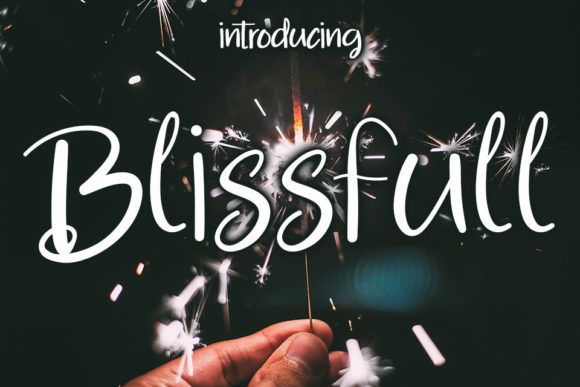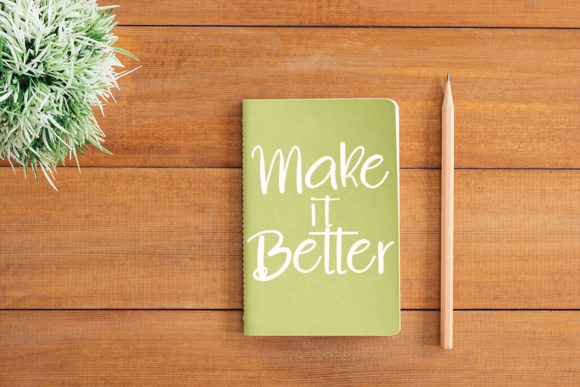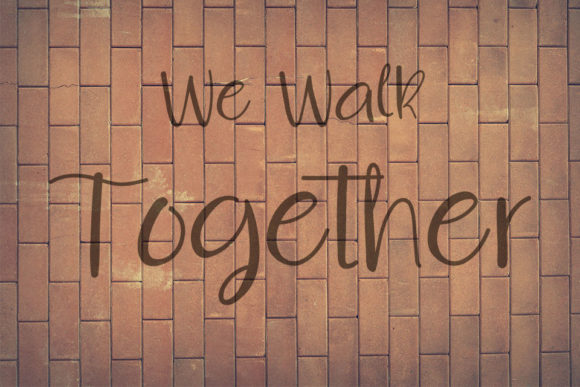
About Blissful Font
Introducing “Blissful,” an exquisite handwritten font meticulously crafted to capture hearts and become a true favorite. With its blend of classy calligraphic influences and contemporary freshness, Blissful adds a touch of elegance and sophistication to any project.
Whether you’re creating wedding invitations, branding materials, quotes, or any other design that requires a touch of charm and refinement, Blissful delivers stunning results. Its graceful strokes and timeless appeal make it perfect for bringing your projects to the highest levels of beauty and sophistication.
Experience the beauty and versatility of Blissful and watch as it transforms your designs into captivating works of art. Whether you’re a professional designer or a passionate enthusiast, this font invites you to explore new possibilities and express yourself with confidence and style.
Unlock the full potential of your designs with Blissful and let its exquisite handwritten font elevate your projects to new heights. With its blend of class and contemporary freshness, Blissful is sure to become a cherished addition to your design toolkit, inspiring creativity and admiration with every use.